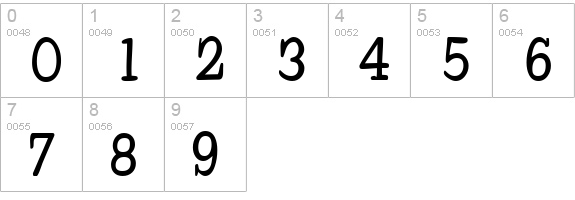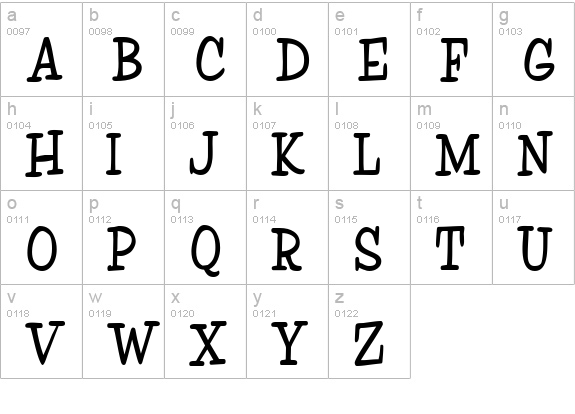
Introducing Ink Font, a stunning typeface that effortlessly captures the essence of elegance and creativity. With its intricate yet fluid strokes, this font exudes a sense of timeless beauty that adds a touch of sophistication to any design project. Ink Font is not only visually captivating, but it also offers a seamless reading experience. The carefully crafted letterforms ensure legibility and readability across various platforms and sizes, making it versatile for both print and digital applications. One of the most remarkable aspects of Ink Font is that it is free! Yes, you read that right. This exceptional font can be freely downloaded at FontsMarket.com, allowing designers, creatives, and enthusiasts from all walks of life to access its exquisite charm without any cost. It's a rare gem in the world of typography, where quality and affordability rarely go hand in hand. Whether you're designing a logo, creating eye-catching headlines, or developing a visually stunning website, Ink Font has got you covered. Its versatility allows it to seamlessly adapt to any style or concept, making it the perfect choice for a wide range of projects. Embrace the beauty and elegance of Ink Font as it effortlessly elevates your design work to new heights. Download it now at FontsMarket.com and unlock a world of creative possibilities, all at the tip of your fingers. Don't miss out on this incredible opportunity to enhance your typography arsenal with a font that combines beauty, functionality, and the irresistible allure of being free.